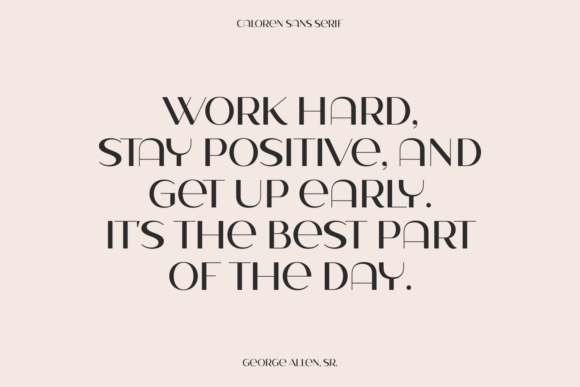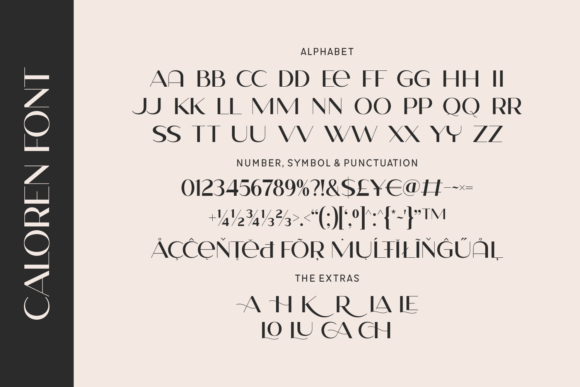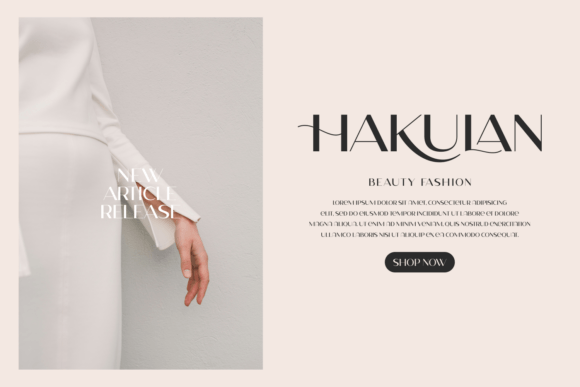
The Elusive Perfect Font: My Encounter with Caloren
I’ll never forget the frustration of working on a branding project for a luxury skincare client. The logo, the color palette, and the overall aesthetic were all coming together beautifully, but the font I had chosen just wasn’t cooperating. It looked either too harsh, too playful, or just plain off. That’s when I stumbled upon Caloren, a clean, modern sans-serif font that would change the game for me and my designs.
First Impressions: A Love Affair with Caloren
Caloren is a font that embodies elegance and beauty. Its smooth lines and balanced shapes make it perfect for a stylish, minimal look. I was immediately drawn to its refined feel, which was exactly what my client’s brand needed. Here’s what I love about Caloren:
- ✨ Smooth and elegant lines: Caloren’s curves are beautifully smooth, making it perfect for designs that require a touch of sophistication.
- ✅ Balanced shapes: The font’s shapes are meticulously crafted to ensure balance and harmony, making it a joy to work with.
- 💡 Versatile and adaptable: Caloren works well in various design contexts, from branding and logos to headings and body text.
The Not-So-Perfect: A Few Quirks
While Caloren has won my heart, it’s not without its quirks. Here are a few things to keep in mind:
- 🤔 Limited italic variations: Caloren’s italic versions are not as extensive as some other fonts, which might limit its use in certain design scenarios.
- ⚠️ Not ideal for body text: While Caloren is beautiful, it’s primarily designed for headings and titles. It might not be the best choice for lengthy body text.
Exploring Alternatives: Similar Fonts to Caloren
- Montserrat: A geometric sans-serif with a similar modern feel, ideal for urban and tech brands.
- Lato: A sleek sans-serif with a warm tone, great for designs that require a friendly yet professional look.
- Raleway: An elegant sans-serif with a refined feel, suitable for luxury brands and high-end designs.
- Avenir: A geometric sans-serif with a clean and modern aesthetic, perfect for forward-thinking brands.
The Story Behind Caloren: Designer Inspiration
While the true story behind Caloren’s creation remains a mystery, it’s easy to imagine that its designer was inspired by the world of luxury and elegance. Perhaps they sought to create a font that would capture the essence of high-end branding and design. Whatever the inspiration, Caloren’s beauty and versatility have won the hearts of many designers.
| Font Name | Caloren Font |
| What makes Caloren suitable for luxury brands? | Caloren’s smooth lines, balanced shapes, and elegant feel make it perfect for luxury brands that require a sophisticated and refined aesthetic. |
| Can I use Caloren for body text? | While Caloren is beautiful, it’s primarily designed for headings and titles. For body text, you might want to choose a font with better readability. |
| Is Caloren available in different weights? | Yes, Caloren comes in various weights, making it versatile for different design applications. |